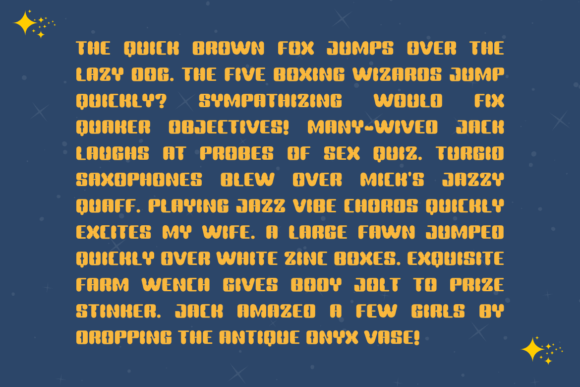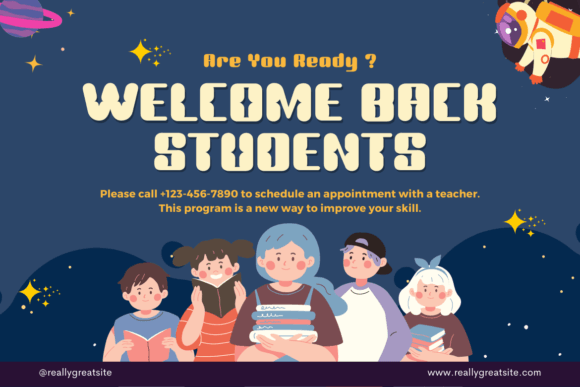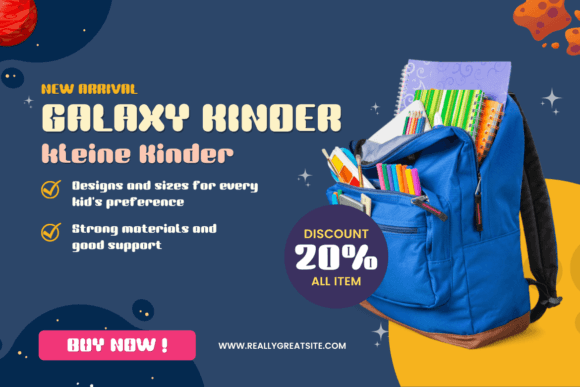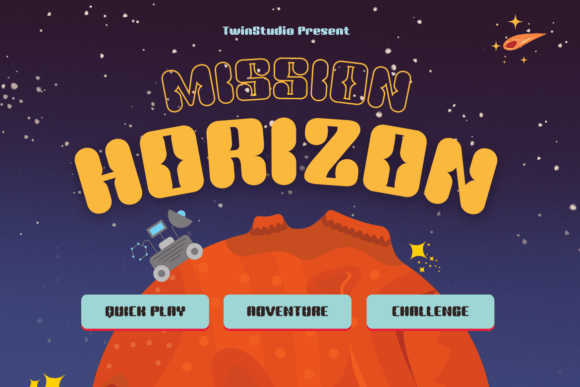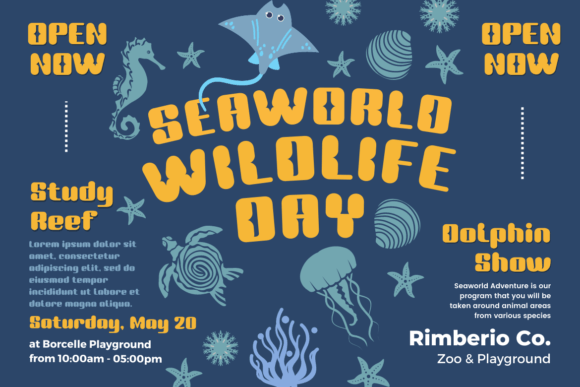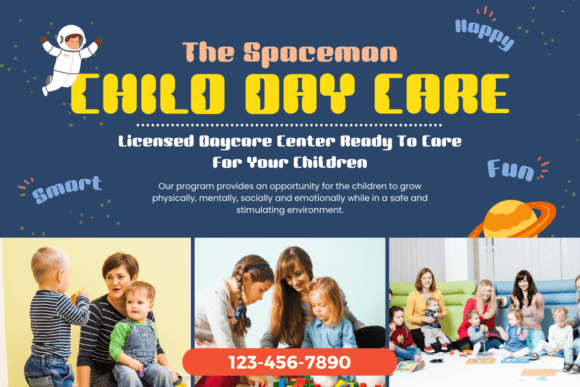
Bakoh Font: The Perfect Addition to Your Design Arsenal
In the world of typography, fonts play a crucial role in conveying the tone and personality of a brand or design. With countless options available, finding the perfect font can be overwhelming. However, if you’re looking for a bubbly display font that exudes simplicity and approachability, look no further than Bakoh Font. In this article, we’ll dive into the world of Bakoh Font, exploring its unique features, design style, and uses, making it an essential read for designers and crafters alike.
The Beauty of Bakoh Font
Bakoh Font is a stunning display font created with a simple and approachable manner. What sets it apart is its beautiful, curved corners that make each letter look harmonious and pleasing to the eye. This distinctive design style makes Bakoh Font suitable for a wide range of projects, from branding and advertising to packaging and digital media.
Design Style and Characteristics
The design style of Bakoh Font is characterized by its:
- Curved corners: Every corner of the letters in Bakoh Font features a beautiful curve, giving the font a smooth and rounded appearance.
- Simple and approachable: The font’s simplicity makes it easy to read and understand, while its approachable nature makes it perfect for designs that require a friendly tone.
- Harmonious and pleasing: The curved corners and simple design of Bakoh Font create a harmonious and pleasing visual effect, making it perfect for designs that require a touch of elegance.
Uses of Bakoh Font
Bakoh Font is a versatile font that can be used in a variety of projects, including:
- Branding and advertising: Use Bakoh Font to create eye-catching logos, posters, and advertisements that require a friendly and approachable tone.
- Packaging design: Add a touch of elegance to your packaging designs with Bakoh Font, perfect for product labels, tags, and wrappers.
- Digital media: Use Bakoh Font in your digital media projects, such as social media graphics, blog posts, and website headers.
- Crafting and DIY projects: Bakoh Font is perfect for crafters and DIY enthusiasts who want to add a personal touch to their projects, such as handmade cards, invitations, and signs.
Why Choose Bakoh Font?
With so many fonts available, why choose Bakoh Font? Here are a few reasons:
- Unique design: Bakoh Font’s curved corners and simple design make it stand out from other fonts.
- Versatility: Use Bakoh Font in a variety of projects, from branding and advertising to crafting and DIY projects.
- Easy to read: Bakoh Font’s simple design makes it easy to read and understand, perfect for designs that require clear communication.
In conclusion, Bakoh Font is a beautiful and versatile display font that is perfect for designers and crafters alike. Its unique design style, characterized by curved corners and a simple approach, makes it suitable for a wide range of projects. Whether you’re looking to create a brand identity, design packaging, or add a personal touch to your crafting projects, Bakoh Font is an excellent choice. With its ease of use and versatility, Bakoh Font is sure to become a staple in your design arsenal.